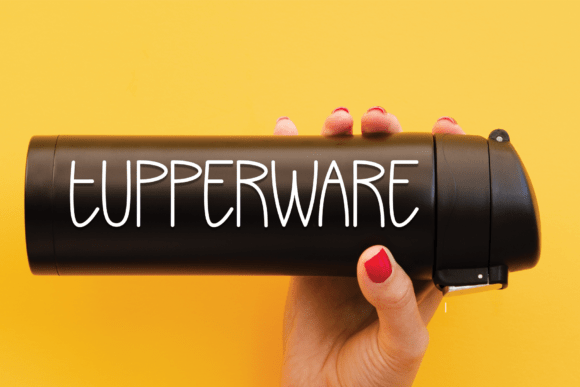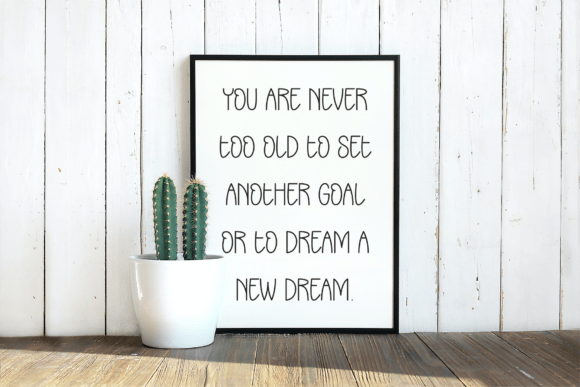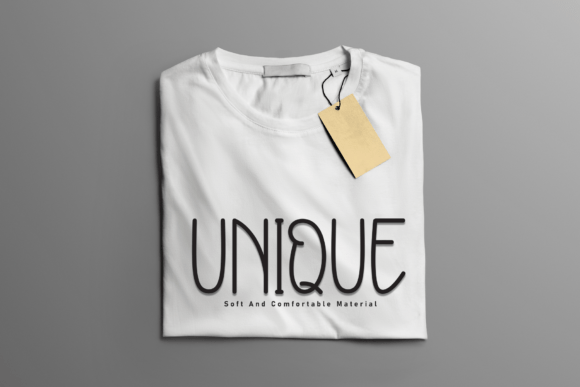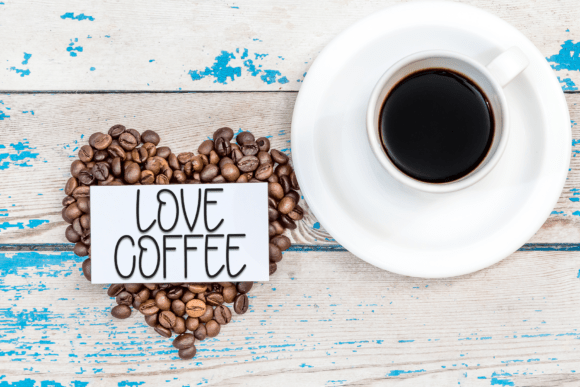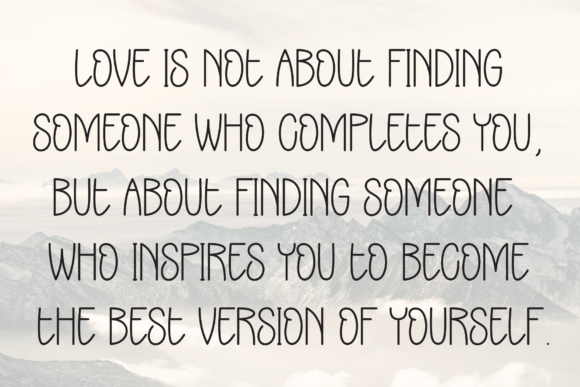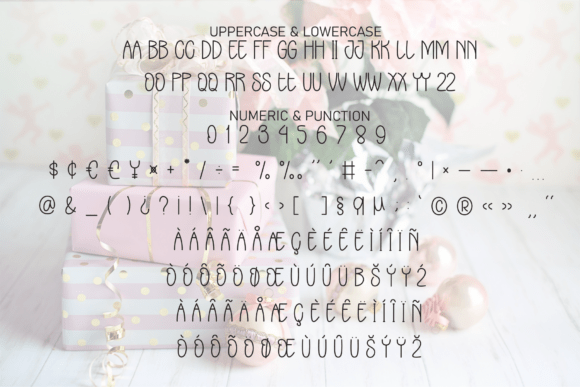
Introducing Flower Birthday Font: The Ultimate Creative Companion for Designers and Crafters
Are you tired of using the same old fonts for your designs? Do you want to add a touch of whimsy and elegance to your creations? Look no further than Flower Birthday Font, a charmingly playful, handwritten display font that radiates sweetness and warmth. This delightful font is perfect for adding a dash of conviviality to your designs, making every project a truly special one.
A Font that Brings Whimsy and Elegance
Flower Birthday Font is a one-of-a-kind font that combines playfulness with sophistication. Its handwritten style gives it a personal and intimate feel, making it perfect for crafting whimsical wedding invites, endearing greeting cards, and other designs that require a touch of elegance. Whether you’re a designer, crafter, or DIY enthusiast, this font is sure to become your go-to creative companion.
Flower Birthday Font is incredibly versatile and can be used for a wide range of design projects. Here are just a few ideas to get you started:
- Wedding invitations and stationery: Add a touch of romance and whimsy to your wedding designs with this beautiful font.
- Greeting cards: Create endearing and personalized greeting cards for birthdays, anniversaries, and other special occasions.
- Party decorations: Use Flower Birthday Font to create festive and fun party decorations, such as banners, garlands, and signs.
- Social media graphics: Add a touch of elegance and sophistication to your social media graphics, such as Instagram posts and Facebook covers.
- Branding and packaging: Use this font to create unique and eye-catching branding and packaging designs that stand out from the crowd.
What Makes Flower Birthday Font So Special?
So, what sets Flower Birthday Font apart from other fonts? Here are just a few features that make it so special:
- Handwritten style: The font’s handwritten style gives it a personal and intimate feel that’s perfect for creating unique and special designs.
- Playful and elegant: Flower Birthday Font combines playfulness with elegance, making it perfect for a wide range of design projects.
- Easy to read: Despite its playful style, the font is incredibly easy to read, making it perfect for designs that require a clear and concise message.
- Versatile: This font can be used for a wide range of design projects, from wedding invitations to social media graphics.
Flower Birthday Font is a truly special font that’s perfect for designers, crafters, and DIY enthusiasts. Its playful and elegant style makes it perfect for a wide range of design projects, from wedding invitations to social media graphics. With its easy-to-read style and versatile design, this font is sure to become your go-to creative companion. So why wait? Download Flower Birthday Font today and start creating unique and special designs that will leave a lasting impression.
In short, Flower Birthday Font is not just a font – it’s a creative companion that beautifully weaves a fun-filled narrative in all your designs. It’s a tool that will help you transform the ordinary into an extraordinary storytelling journey, making every design not just a text but an enthralling experience. So, lose yourself in the lively appeal of this font and watch your designs come to life in a whole new way.